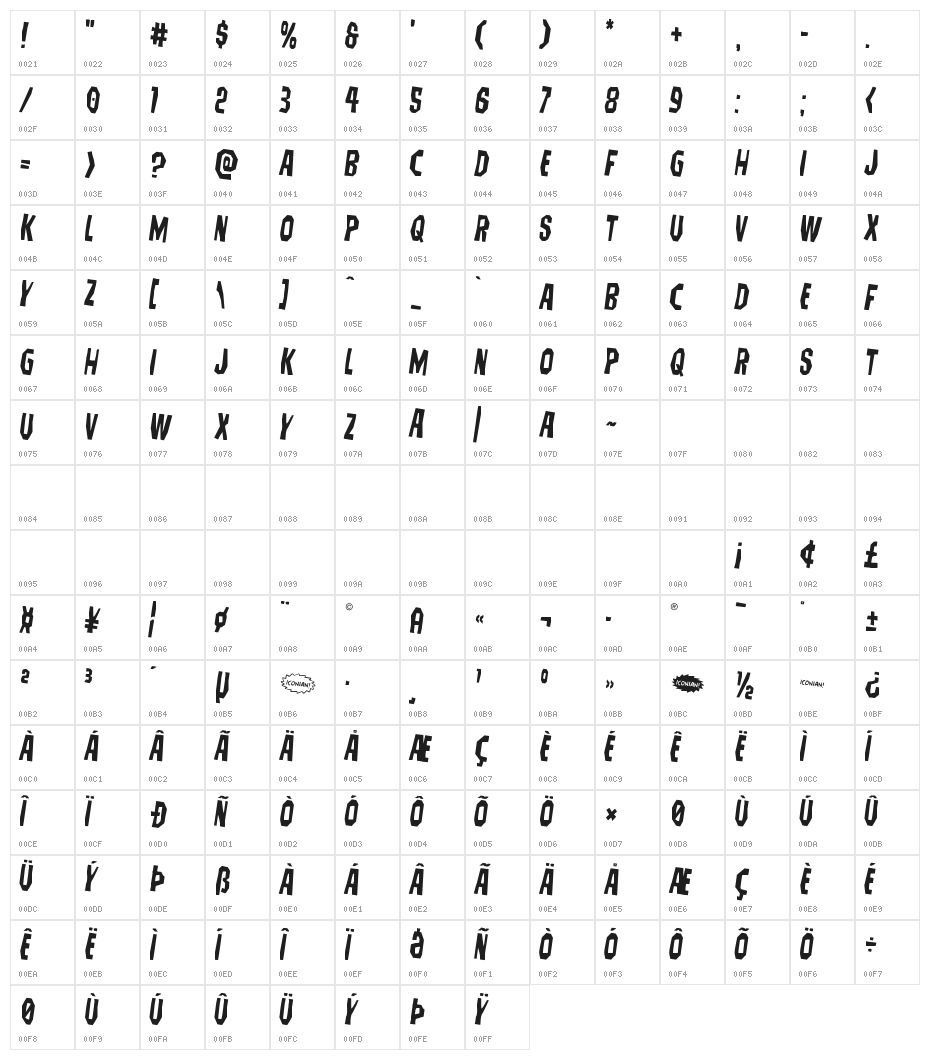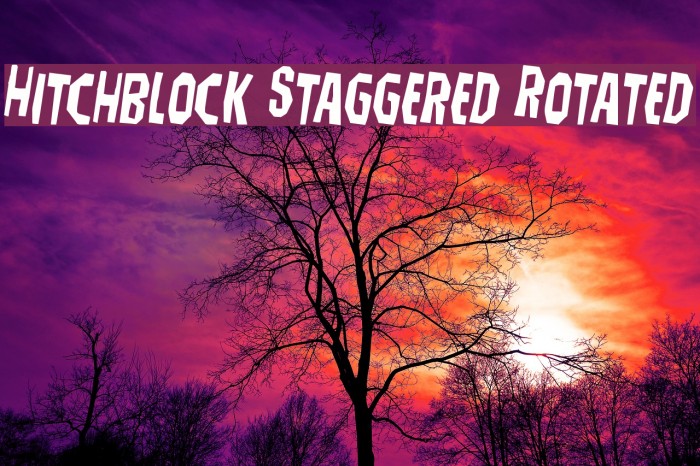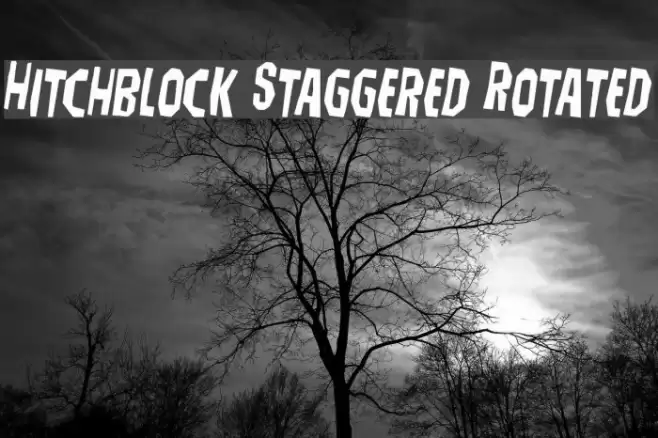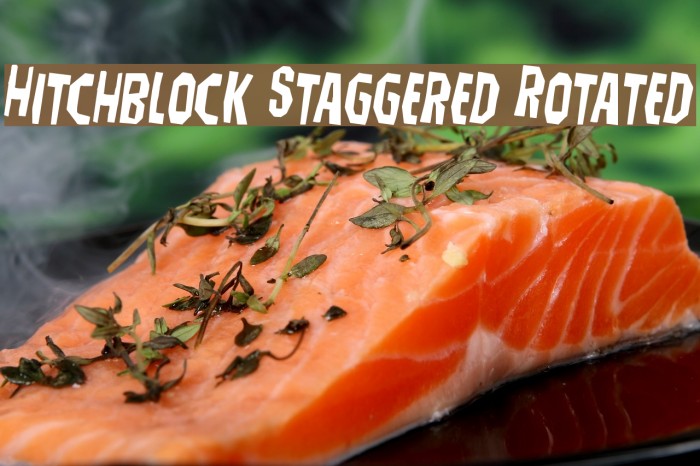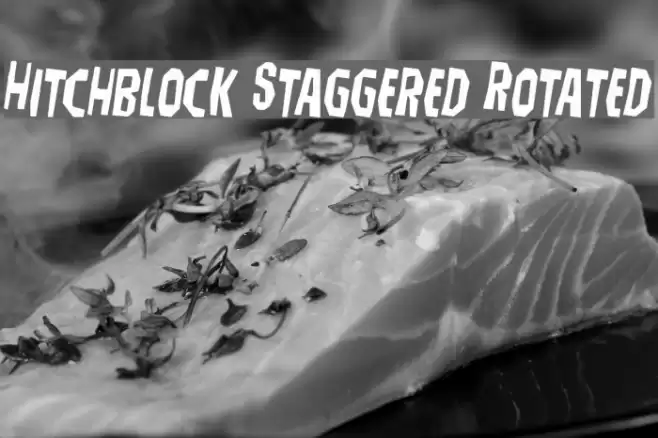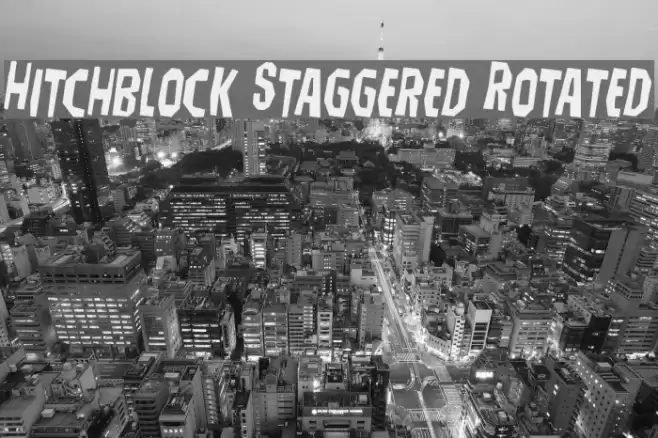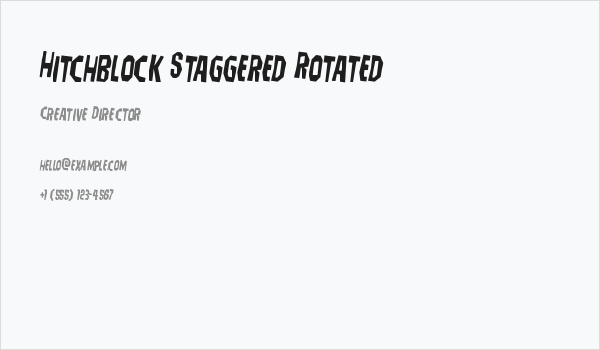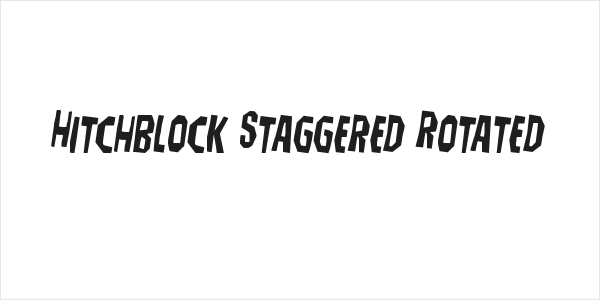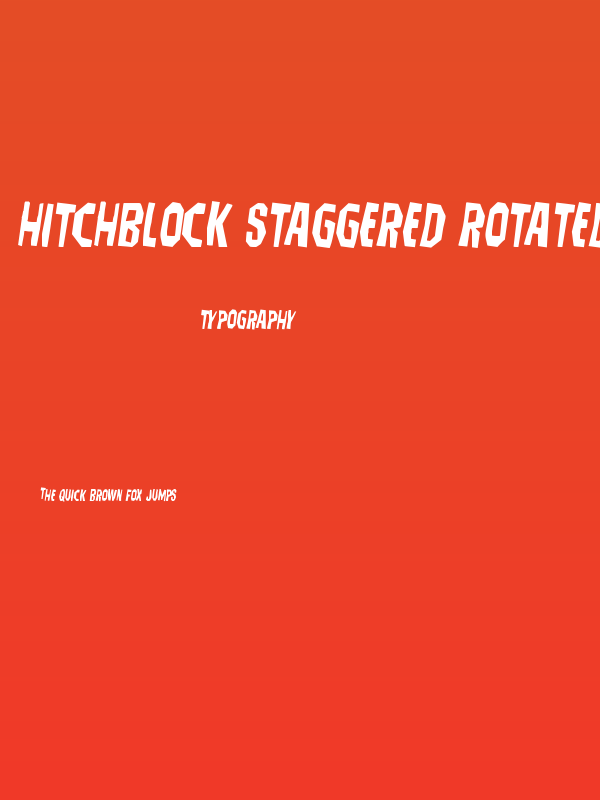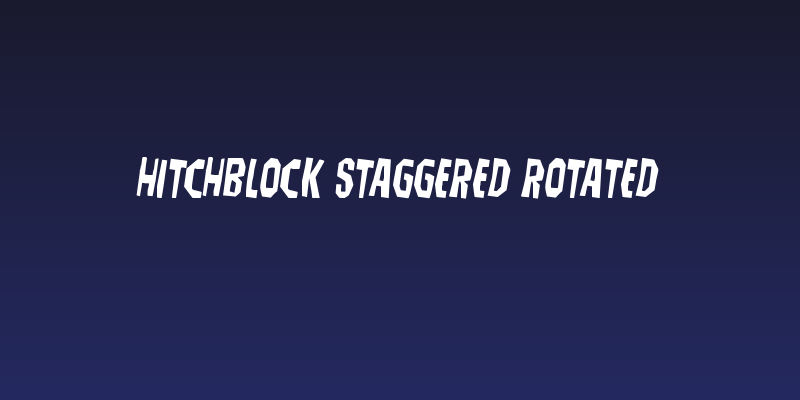
Hitchblock Staggered Rotated Font
Hitchblock Staggered Rotated Description
This font features a bold and dynamic style with a staggered and rotated appearance, giving it a sense of movement and energy. The characters are angular and slightly slanted, creating a unique and eye-catching look. The uppercase letters are particularly striking, with sharp edges and a strong presence. The numbers and special characters maintain the same boldness and angularity, ensuring consistency throughout the typeface. This font is ideal for projects that require a bold statement and a modern, edgy feel.